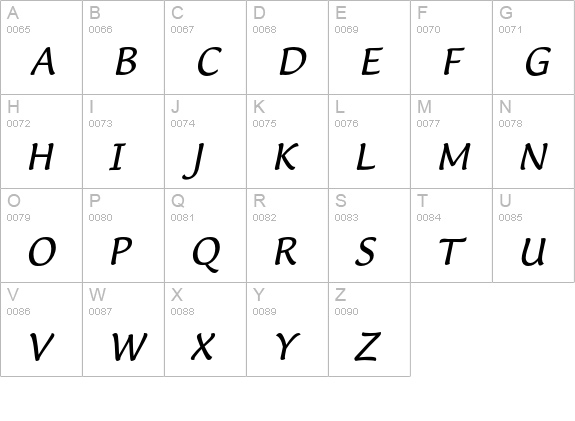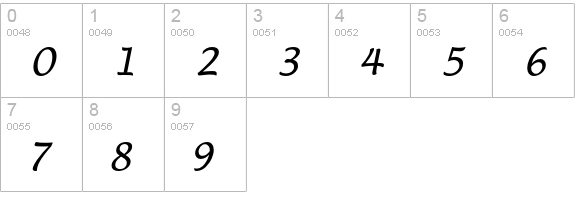
LucidaCasualEF-Italic Font Details
LucidaCasualEF-Italic is a distinctive, italic variant in the LucidaCasualEF typeface family \xE2\x80\x94 well suited to design and typography projects.
Lucida Casual EF Italic is a charming and elegant font that exudes a casual yet sophisticated vibe. With its slanted and flowing cursive style, this font is perfect for adding a touch of personality and flair to your designs. The italicized characters of Lucida Casual EF bring a sense of movement and dynamism, making it ideal for creating eye-catching headers, titles, and quotes. The best part is that Lucida Casual EF Italic is available for free download at FontsMarket.com. Whether you're working on a personal project, professional design, or simply want to experiment with a new font, Lucida Casual EF Italic is a versatile choice that will enhance your creative endeavors. Don't miss out on this opportunity to elevate your designs with the beauty and grace of Lucida Casual EF Italic font.